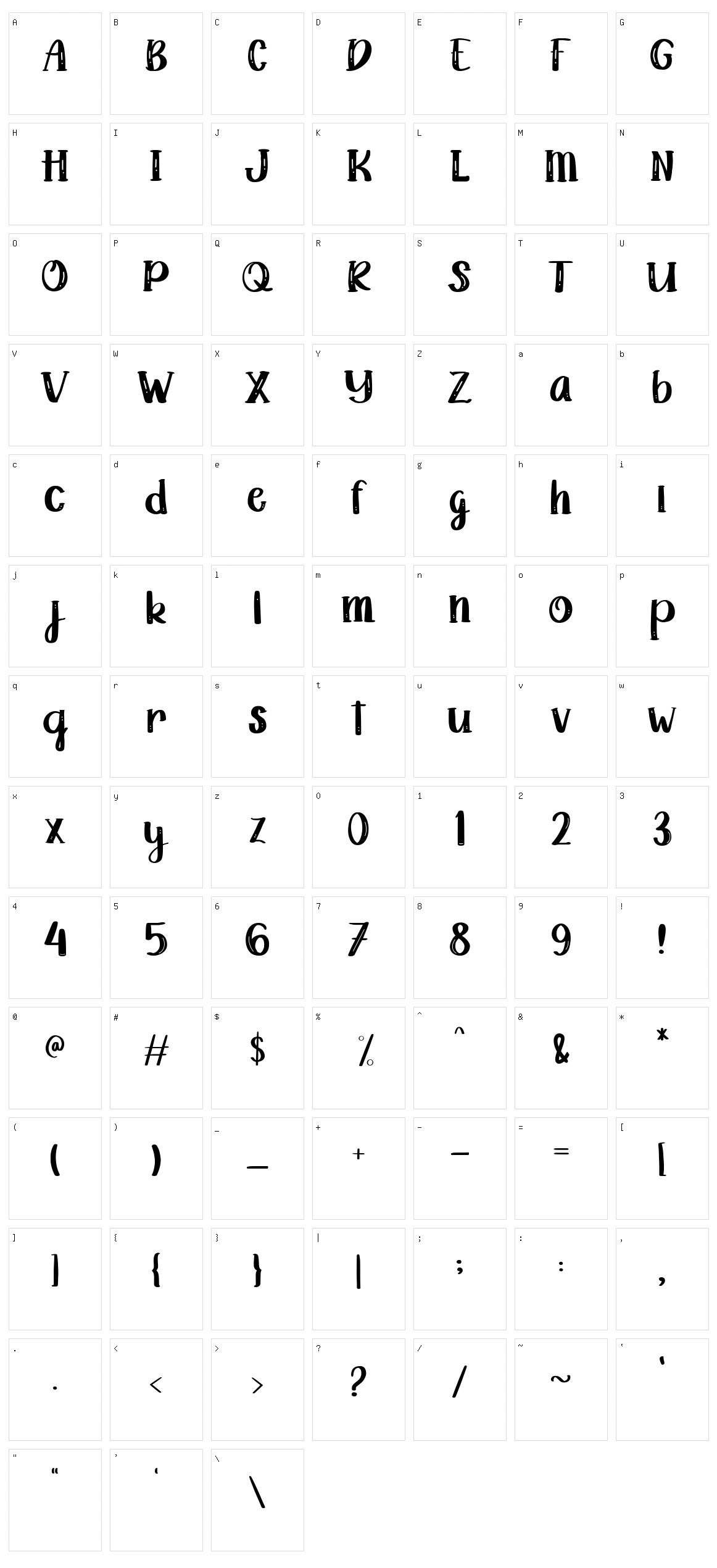
The free font Pink Reef is carefully designed by nomlimofont, showcasing a thoughtful balance of creativity and usability and falls under the Cartoon font style. When you download the ZIP file, it contains only 133.84 KB of font files, making it lightweight and quick to download. Please review the license details below to understand permitted usage and distribution rights. If license information is not available, we recommend using this font for personal projects only or contacting the author directly for commercial usage permissions.